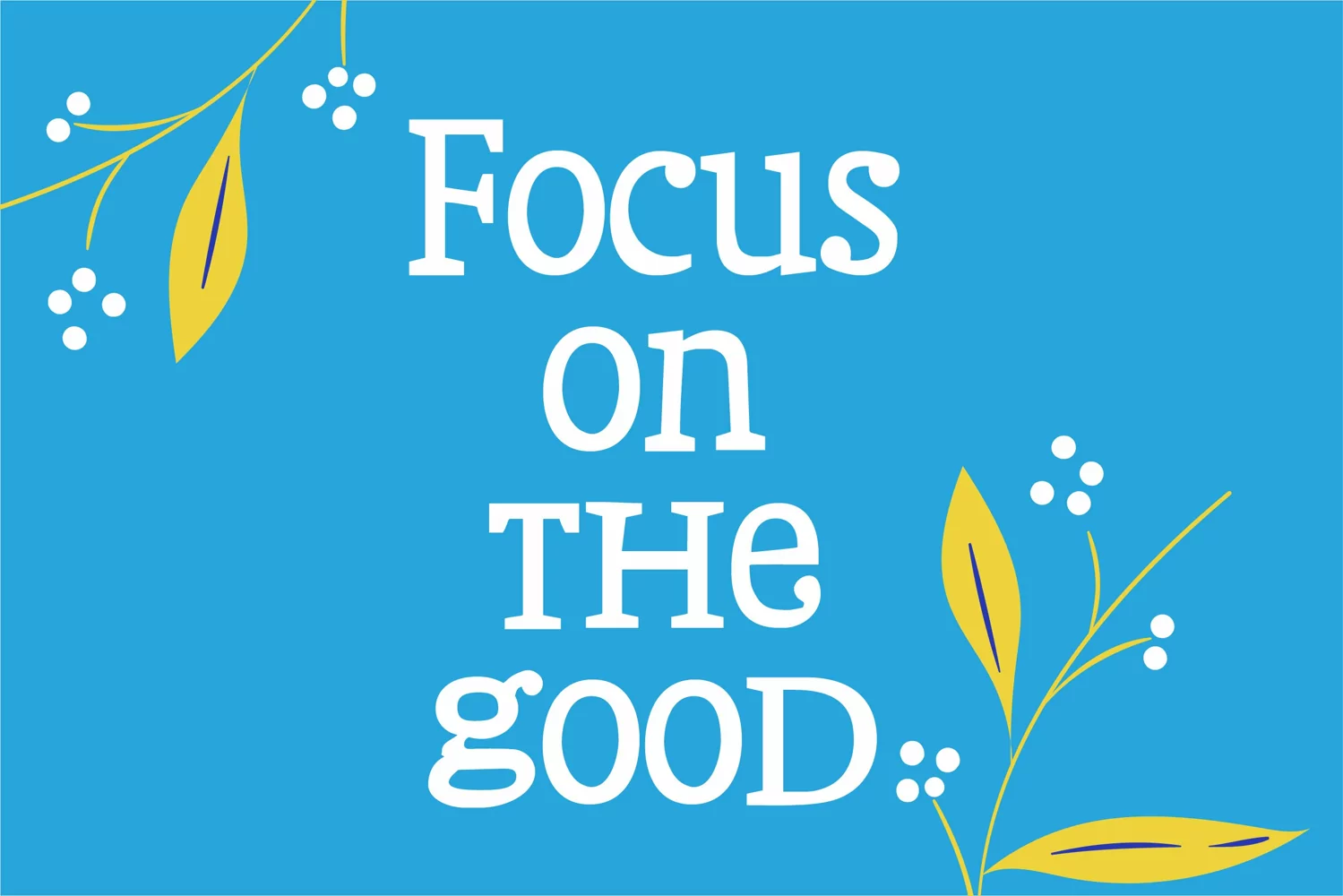
Blank Check is a relaxed and simple serif font. Whether you’re looking for fonts for Instagram or calligraphy scripts for DIY projects, this font will turn any creative idea into a true piece of art! Includes both regular and bold.